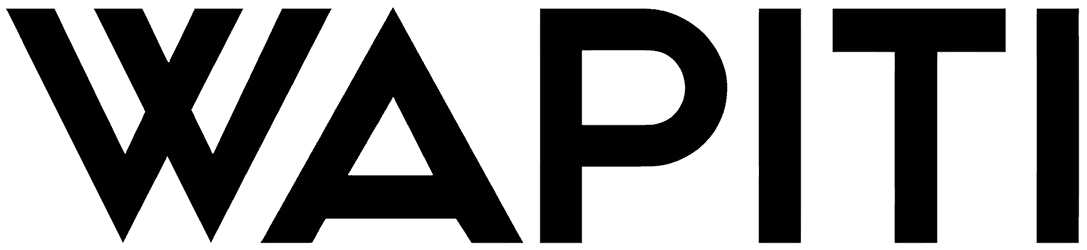
Wapiti Font
Let us introduce a modern sans serif font with a unique and humble design, which is called Wapiti. For many subjects in any design, such a matchable option would be an apt choice. This geometric font doesn’t cover lowercase letters and most of the punctuation marks, but it would work well for many designs, from logos to packaging.